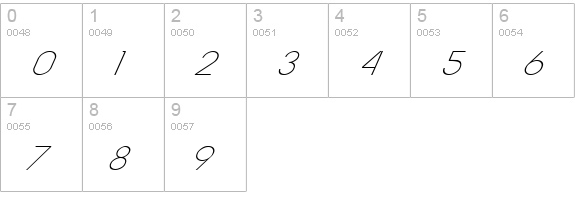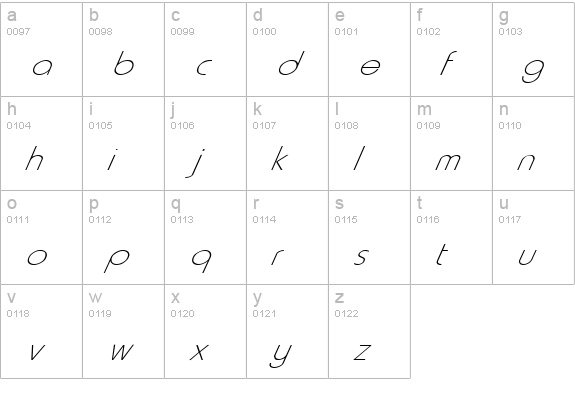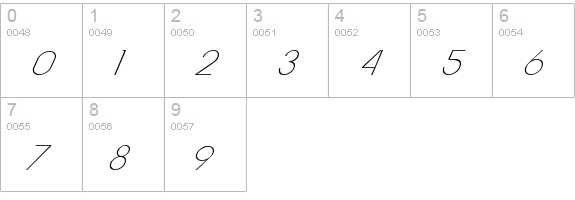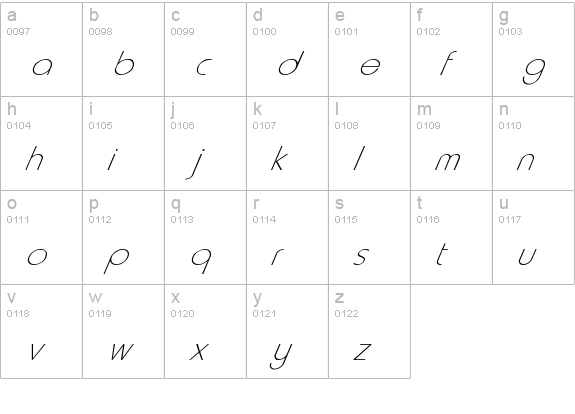
GiovanniItalic Font Details
GiovanniItalic is a sleek and sophisticated font that exudes elegance and charm. Its italicized design adds a touch of flair and style to any project, making it perfect for creating eye-catching headlines and titles. With its graceful curves and smooth lines, GiovanniItalic is sure to make a lasting impression on any audience. Best of all, GiovanniItalic is completely free to download at FontsMarket.com. This means that you can add this stunning font to your collection without having to spend a dime. Whether you're designing a wedding invitation, crafting a logo, or working on a creative project, GiovanniItalic is the perfect choice for adding a touch of class and sophistication. Download GiovanniItalic today and elevate your designs to new heights!